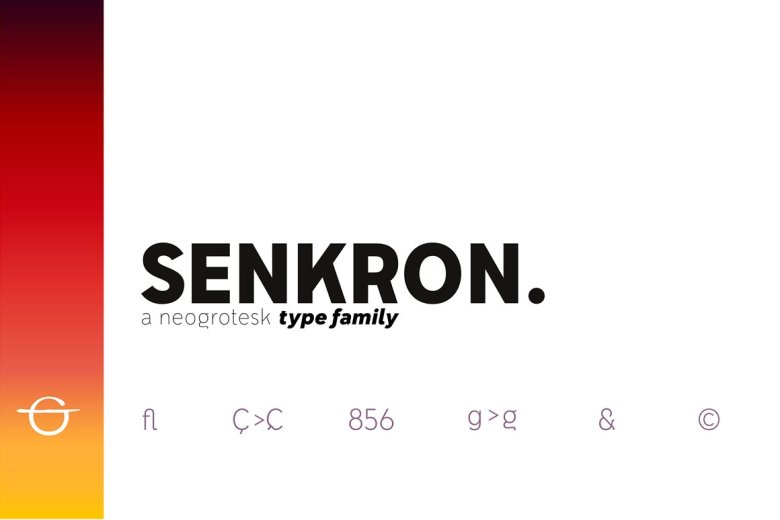
Senkron Font Family
Senkron Font
Senkron sans is a family of many fonts. Robust, clean and modern it is ideal for corporate documents and layouts, but with its clear legibility and the subtle, softer personality of the lowercase forms it is built for branding and logo design and perfectly at home when used in longer runs of body copy in print, web and mobile app projects.
Senkron Sans Serif Font Family